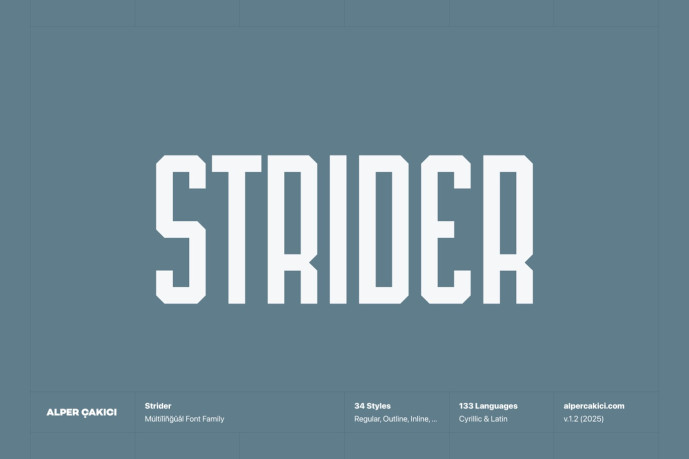
Strider is a dynamic, geometric font family with 34 unique styles, crafted for designers who want flexibility and personality in their typography. From Angular, Brush, Eroded, Inline, Outline, Pencil, Rough, to Rounded styles, Strider covers a wide spectrum of visual expressions.
Strider supports 133 Languages including wide range of Latin and Cyrillic Alphabets.